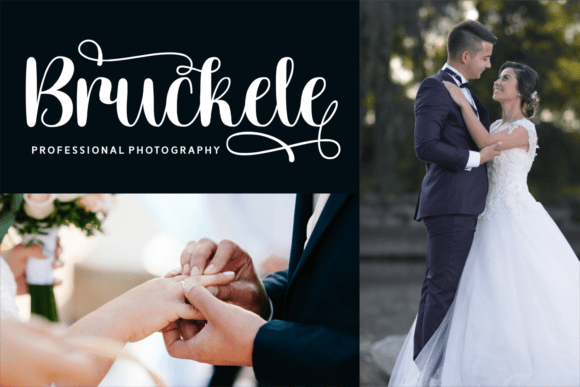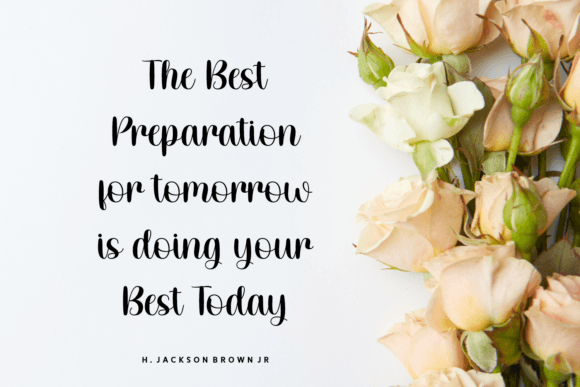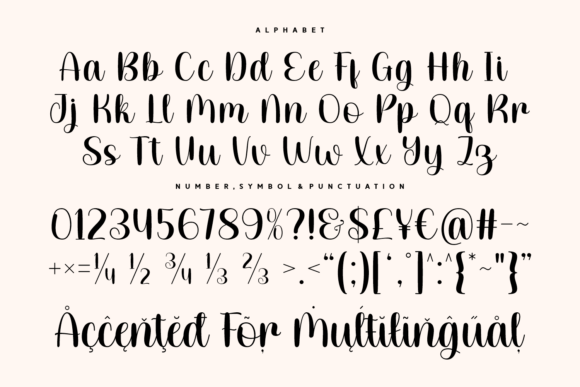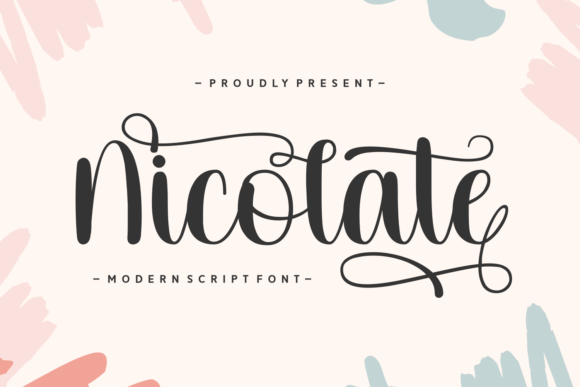
Introduction to Nicolate Font
Nicolate is a stylish modern script font with beautifully flowing strokes and exquisite swashes.
Perfectly balanced between boldness and elegance, this font is ideal for creating standout designs such as logos, branding, wedding invitations, product packaging, and social media posts Nicolate adds a sophisticated and charming touch to any creative project.
Key Features of Nicolate Font
Why Choose Nicolate Font?
Nicolate Font offers exceptional quality and versatility, making it a valuable addition to your design toolkit. Whether you’re creating for personal projects or commercial use, Nicolate Font delivers professional results.